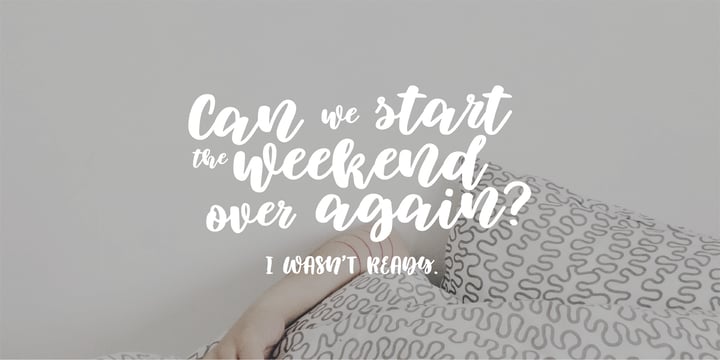
Elowen
by Katsia Jazwinska
The Elowen Font Family was designed by Katsia Jazwinska and published by Katsia Jazwinska. Elowen contains 2 styles and family package options. More about this family
Elowen is a bold script font with a smooth, flowing style and a playful rhythm. Its rounded strokes and natural connections create a friendly, handcrafted look that stays clear and legible.
It includes double-letter ligatures for a more natural feel, along with a matching all-caps version that works well for headlines and short titles.
Elowen is a good choice for branding, packaging, invitations, and social media. It supports a wide range of Latin and Cyrillic languages, making it suitable for both local and international projects.